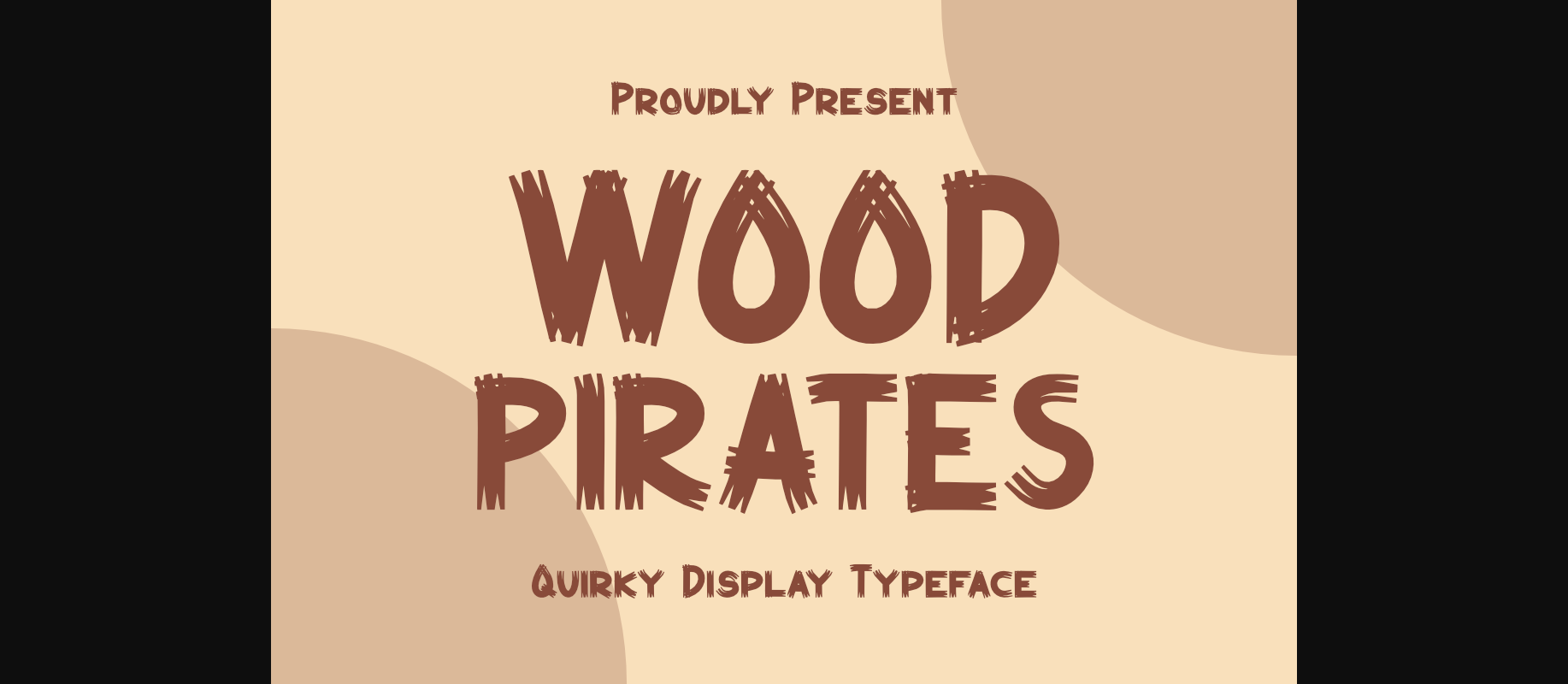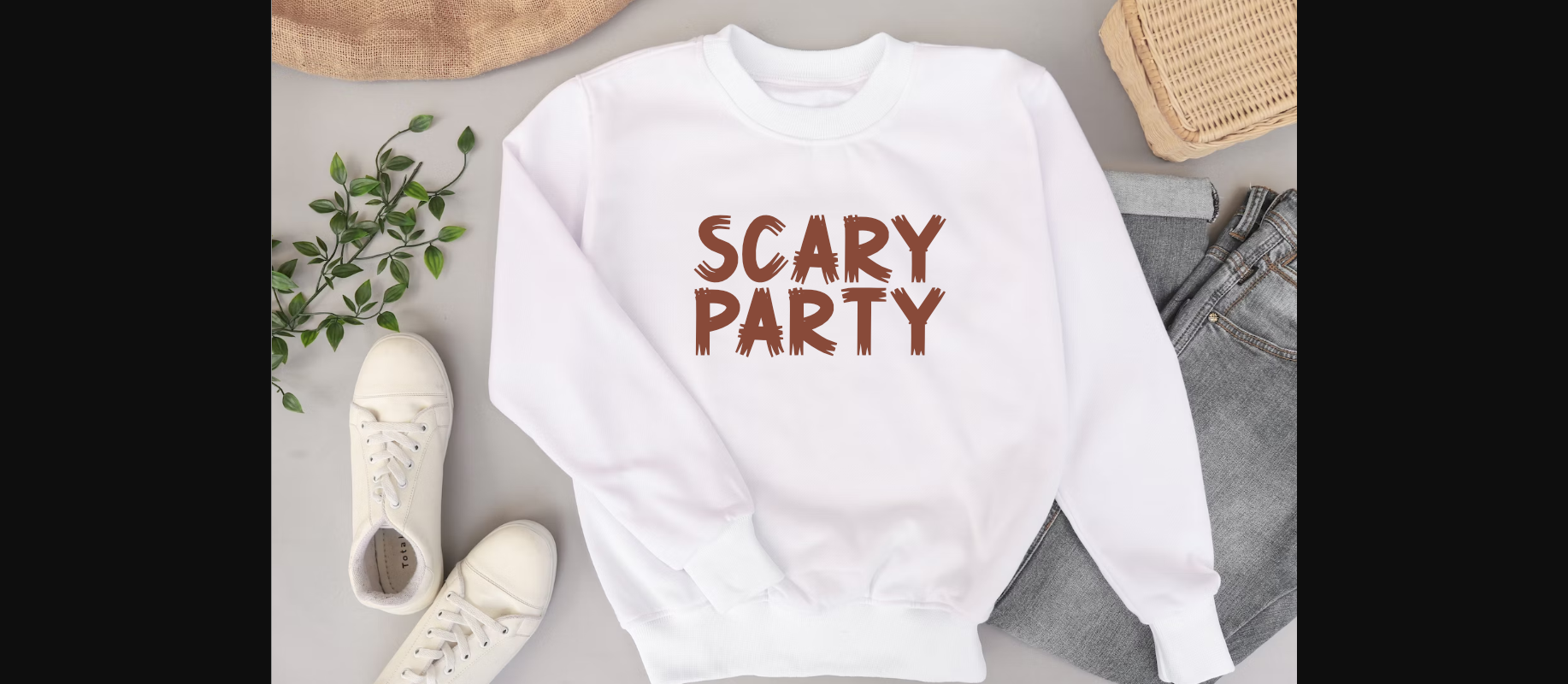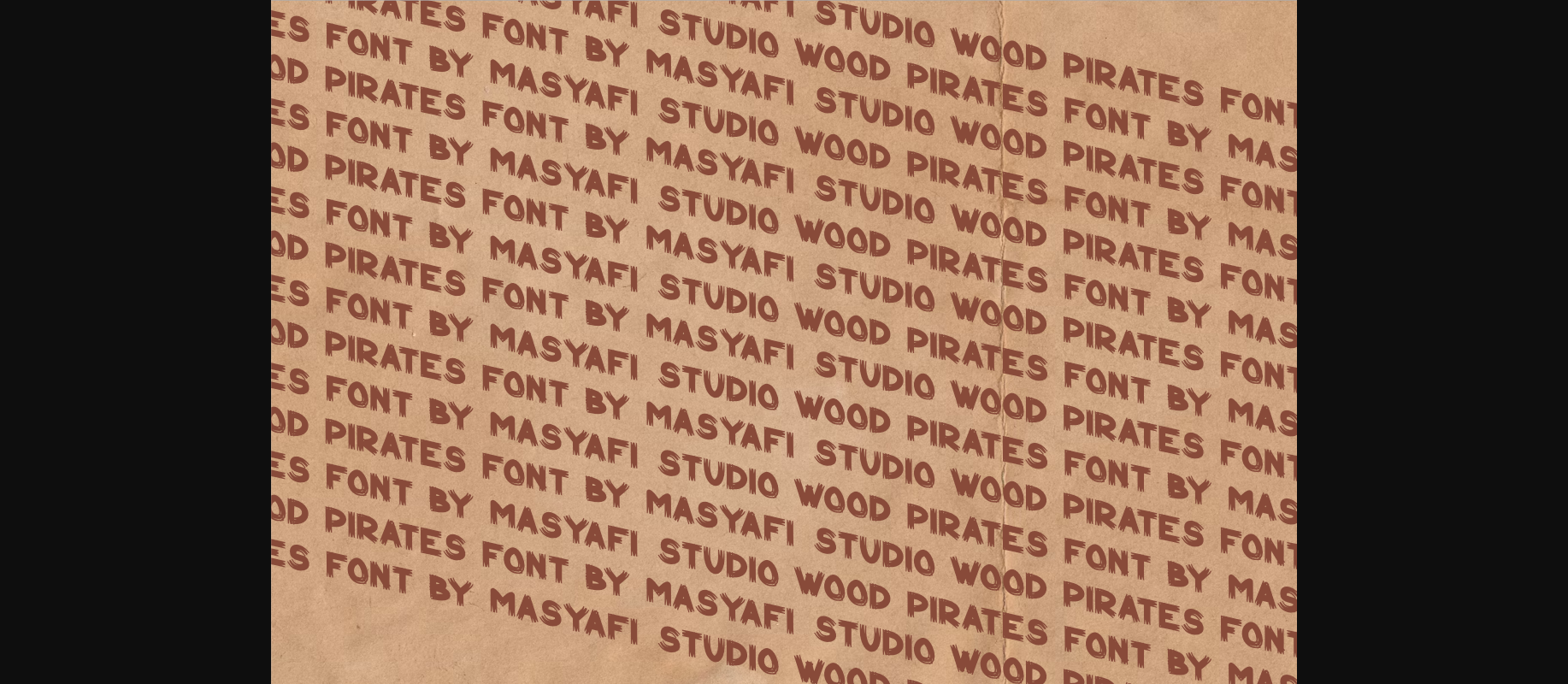
About Wood Pirates Font
Wood Pirates is a quirky display font. A decorative display font inspired by wooden shapes. font with a flat illustration style. This font is cool for craft needs such as stickers, labels, book covers, SVG quotes, SVG cut files, Cricut, t-shirt designs, greeting cards, children’s books, and many other creative ideas.